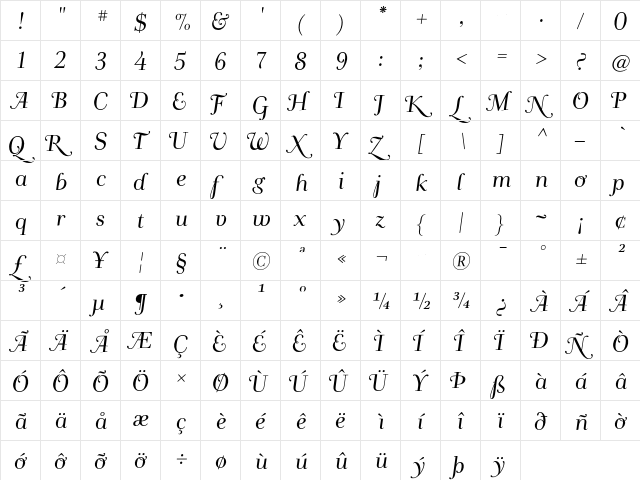
Andrade Pro Swashes Font Preview
Andrade Pro Swashes
Andrade Pro Swashes Font Details
| Style | Swashes |
| Foundry | Dino dos Santos _DSType |
| Designer | Dino dos Santos |
Design Context for Andrade Pro Typeface
Andrade Pro flows with the natural rhythm of handwritten lettering, making it ideal for designs that call for warmth and personal expression.
Font Pairing: Combine Andrade Pro with a simple geometric sans for maximum contrast — the tension between flowing curves and clean structure is a classic typographic pairing.
Pro Tip: Use Andrade Pro for short runs of text — names, titles, or taglines. Extended body copy in script faces tires the eye quickly.